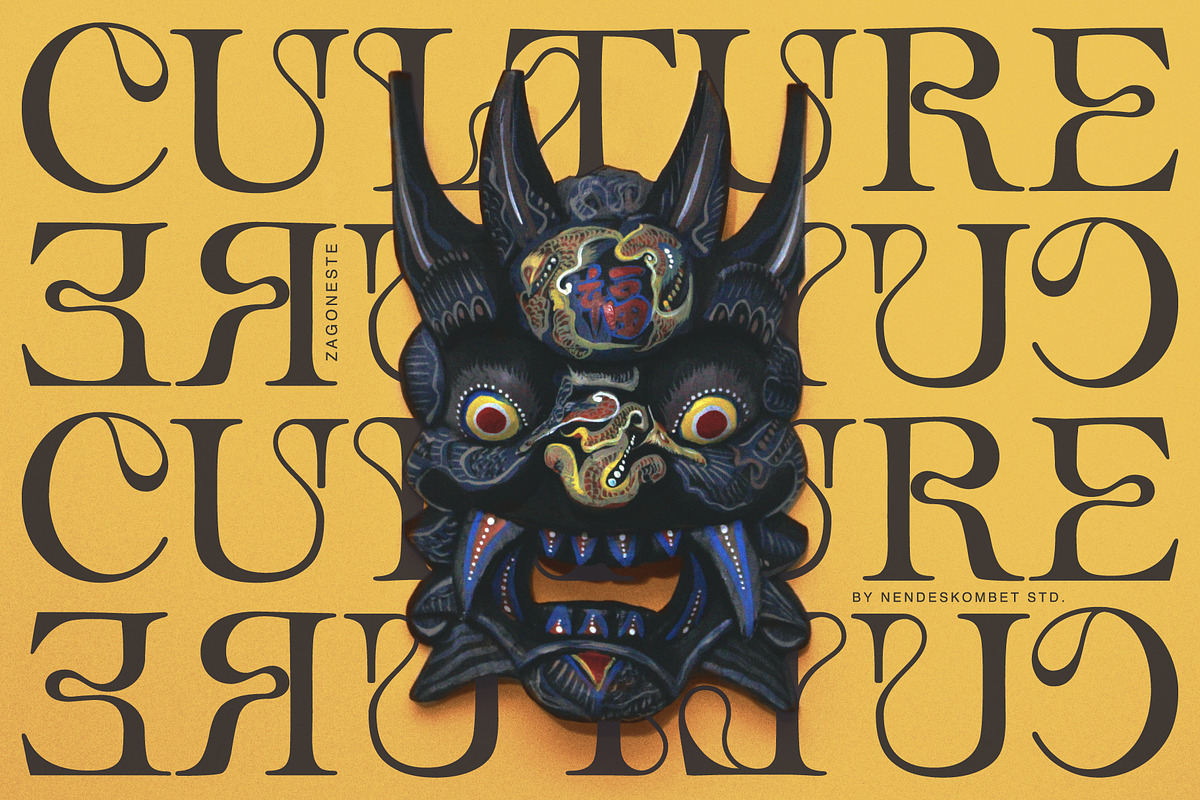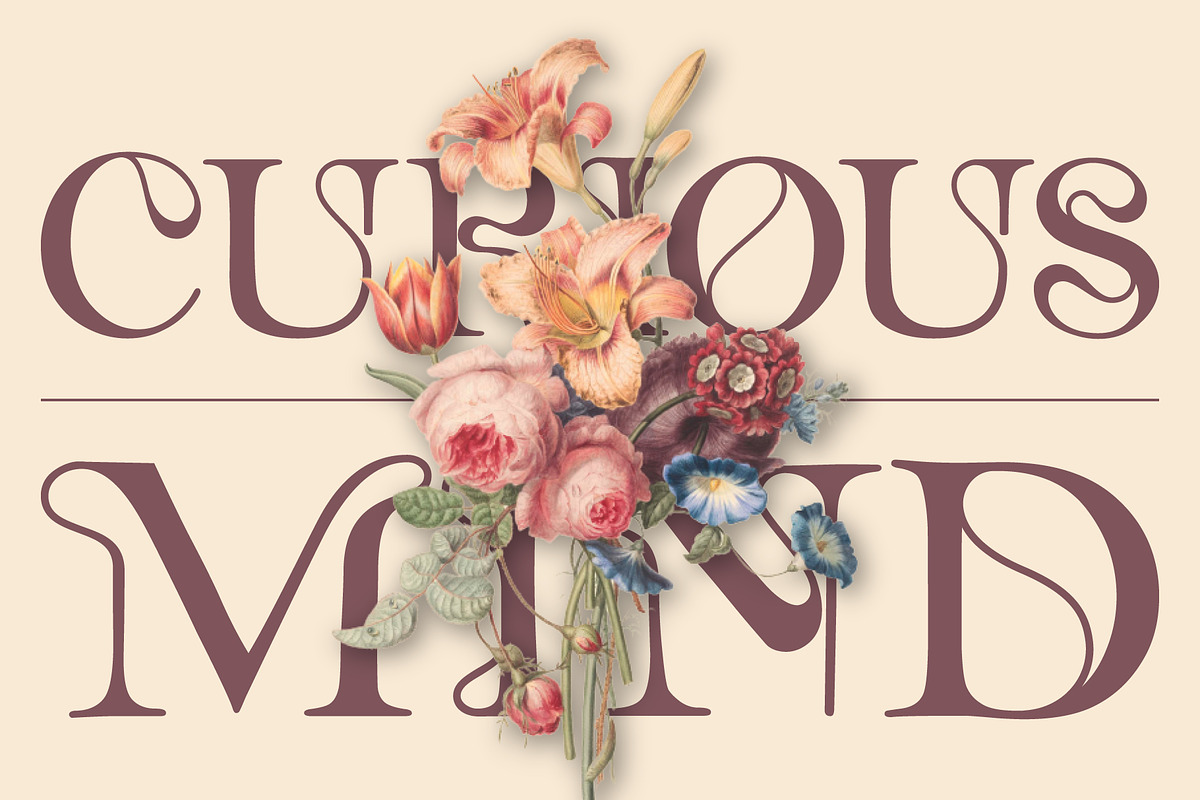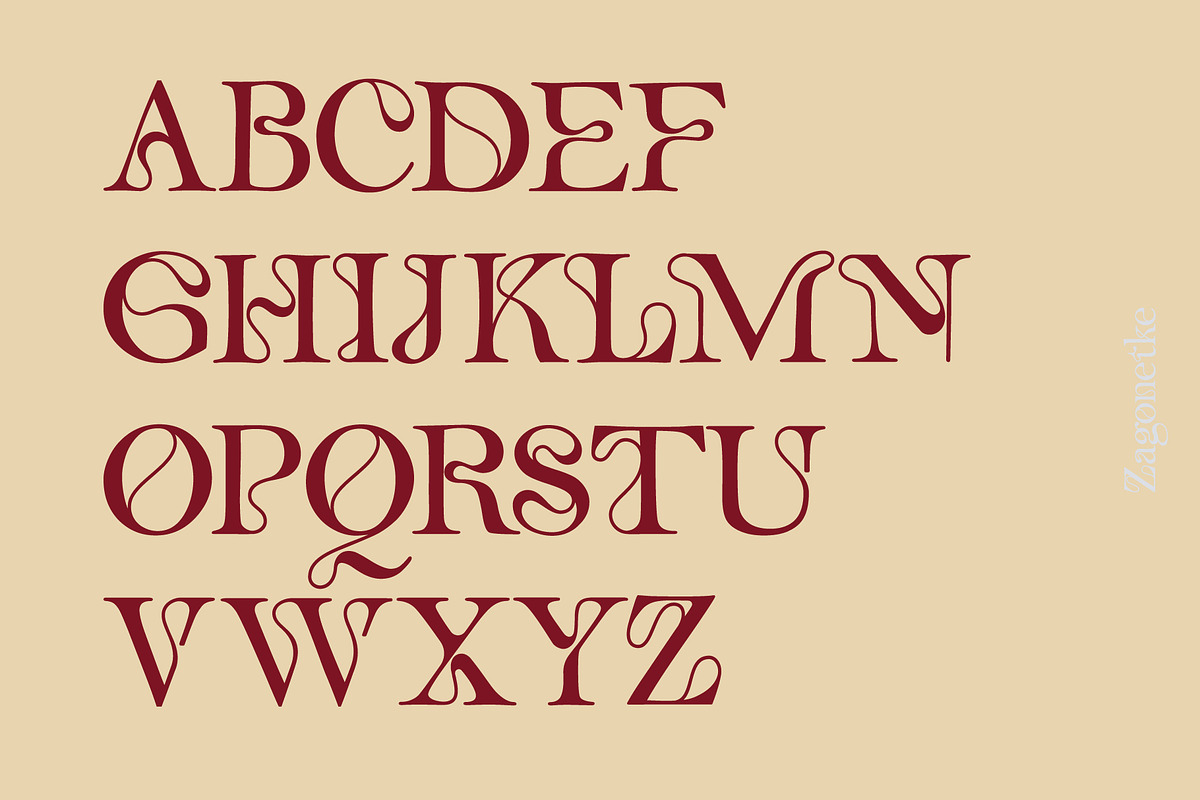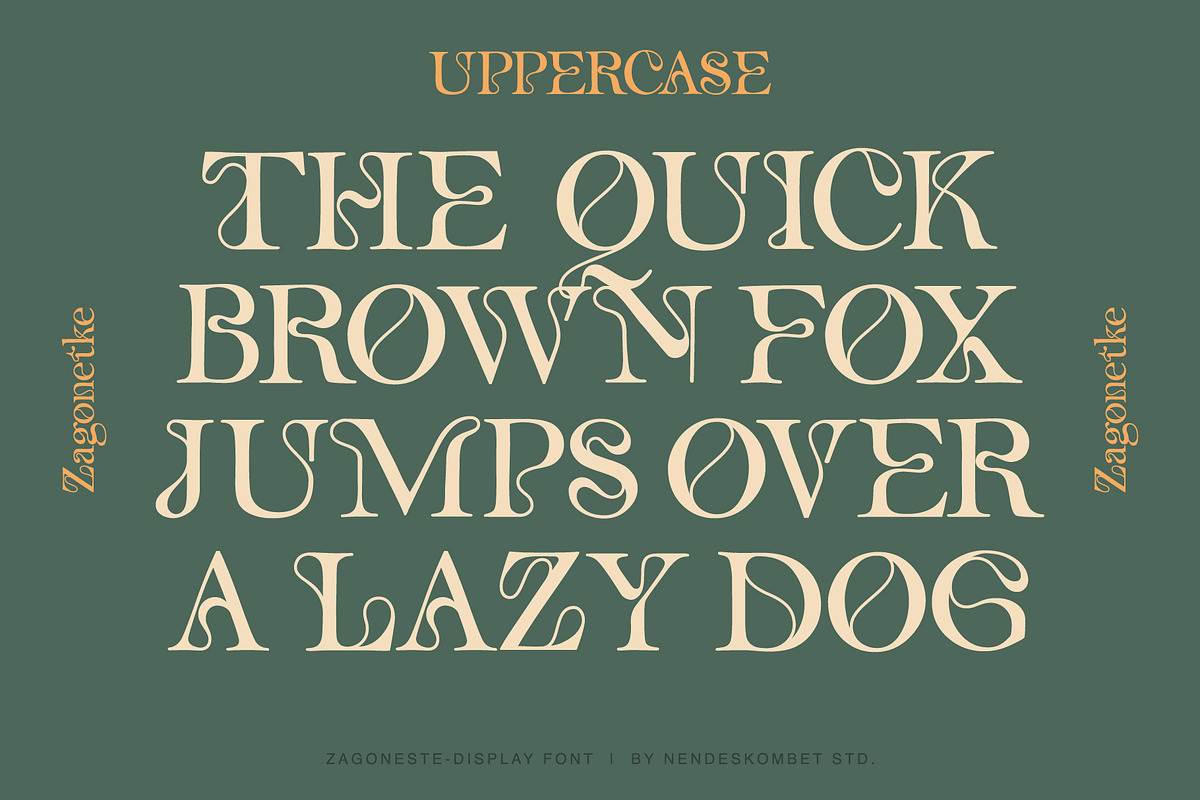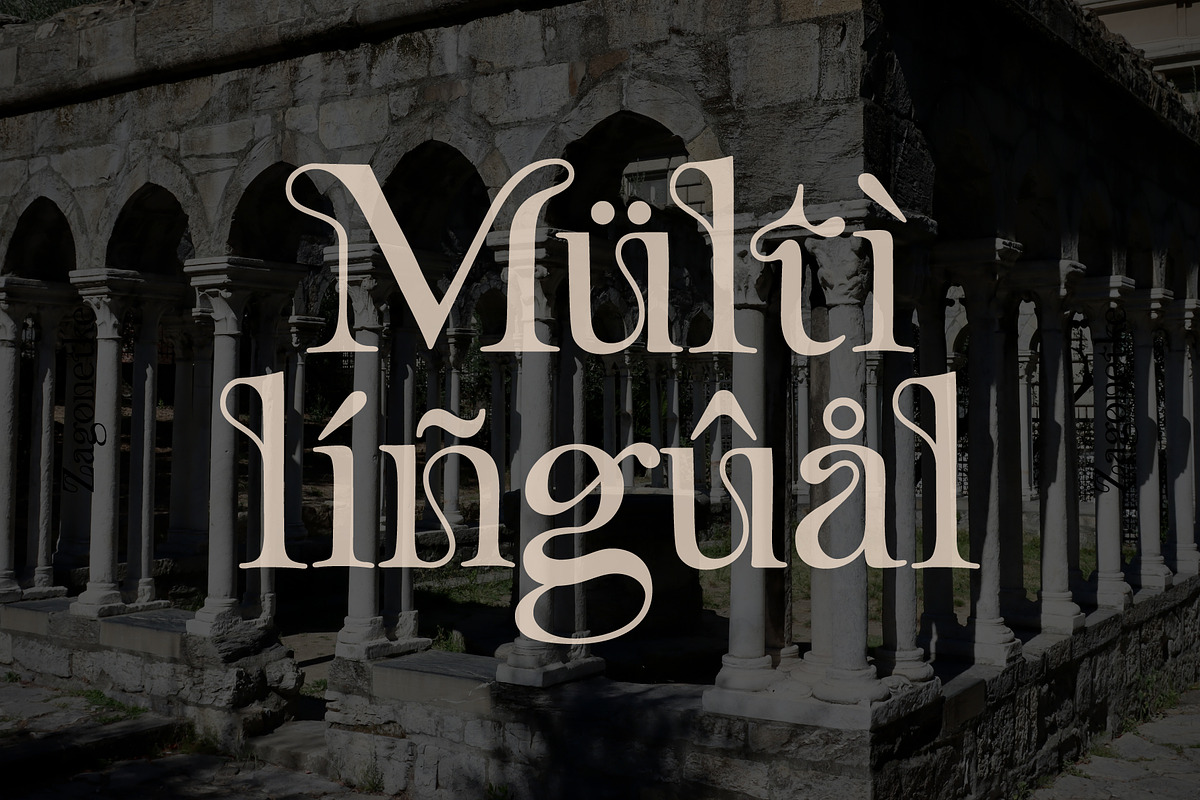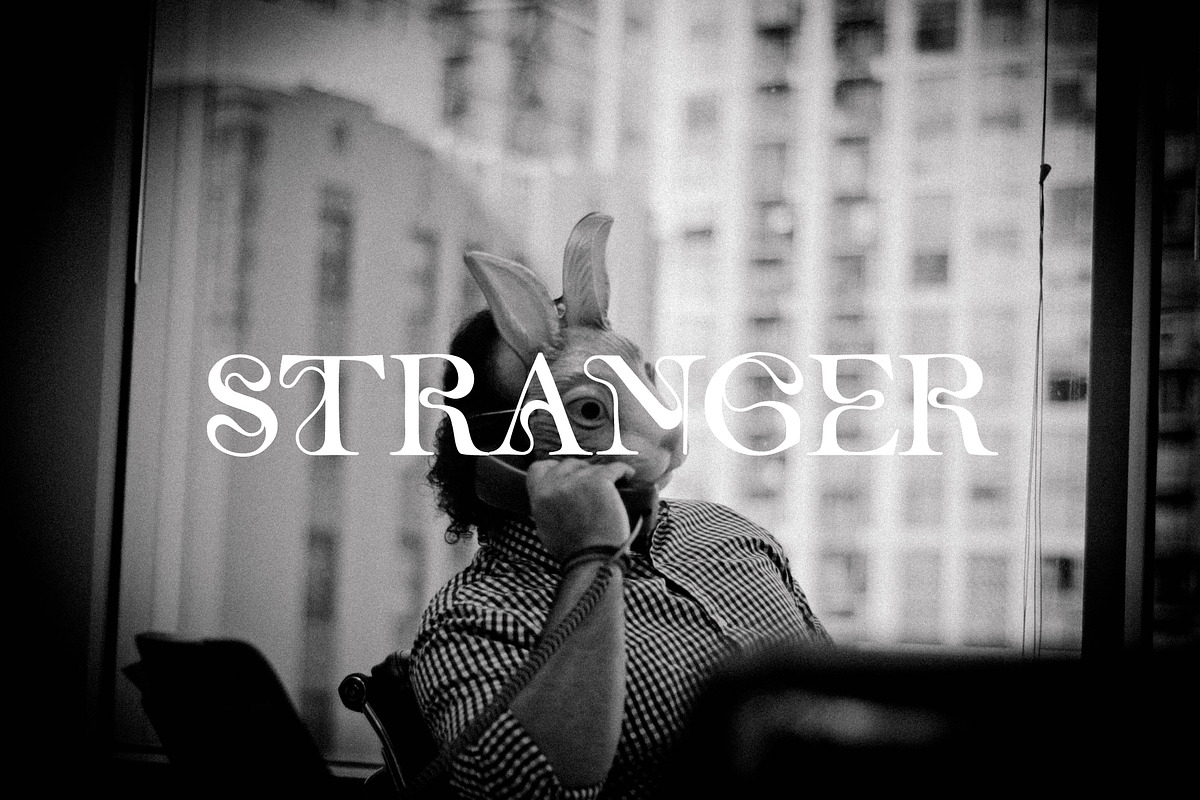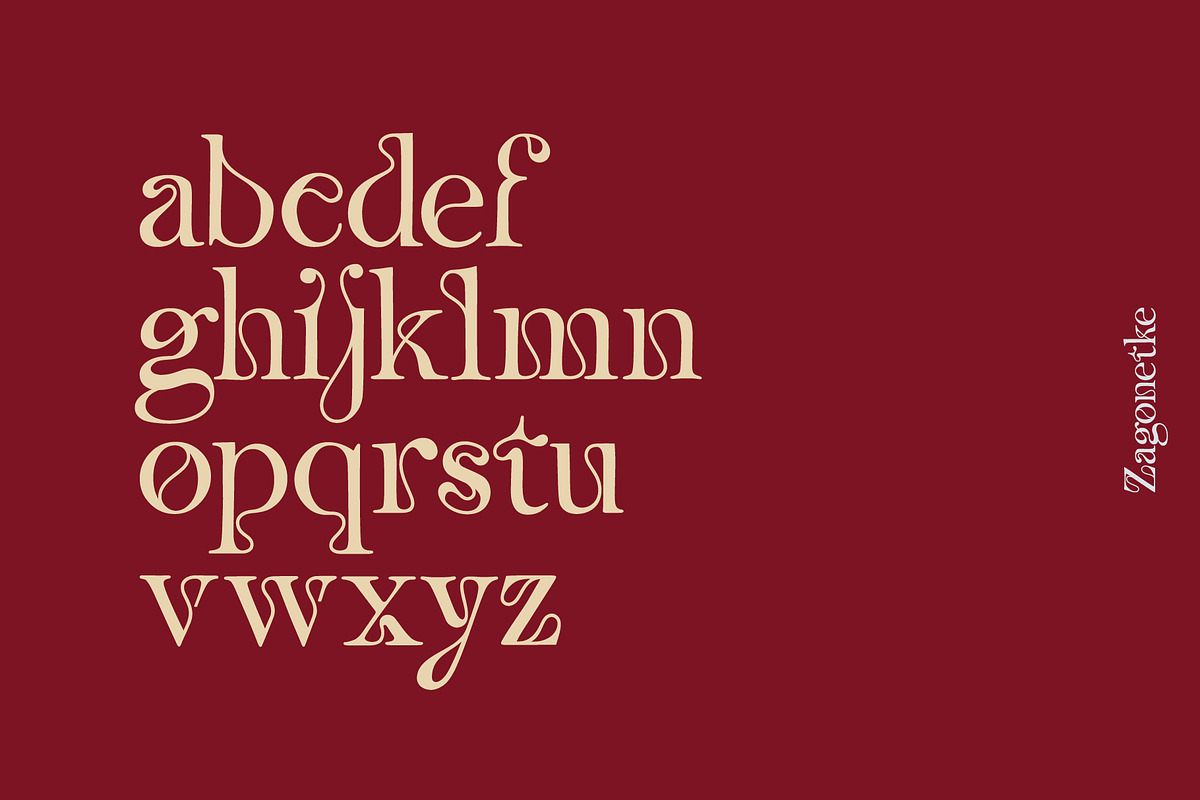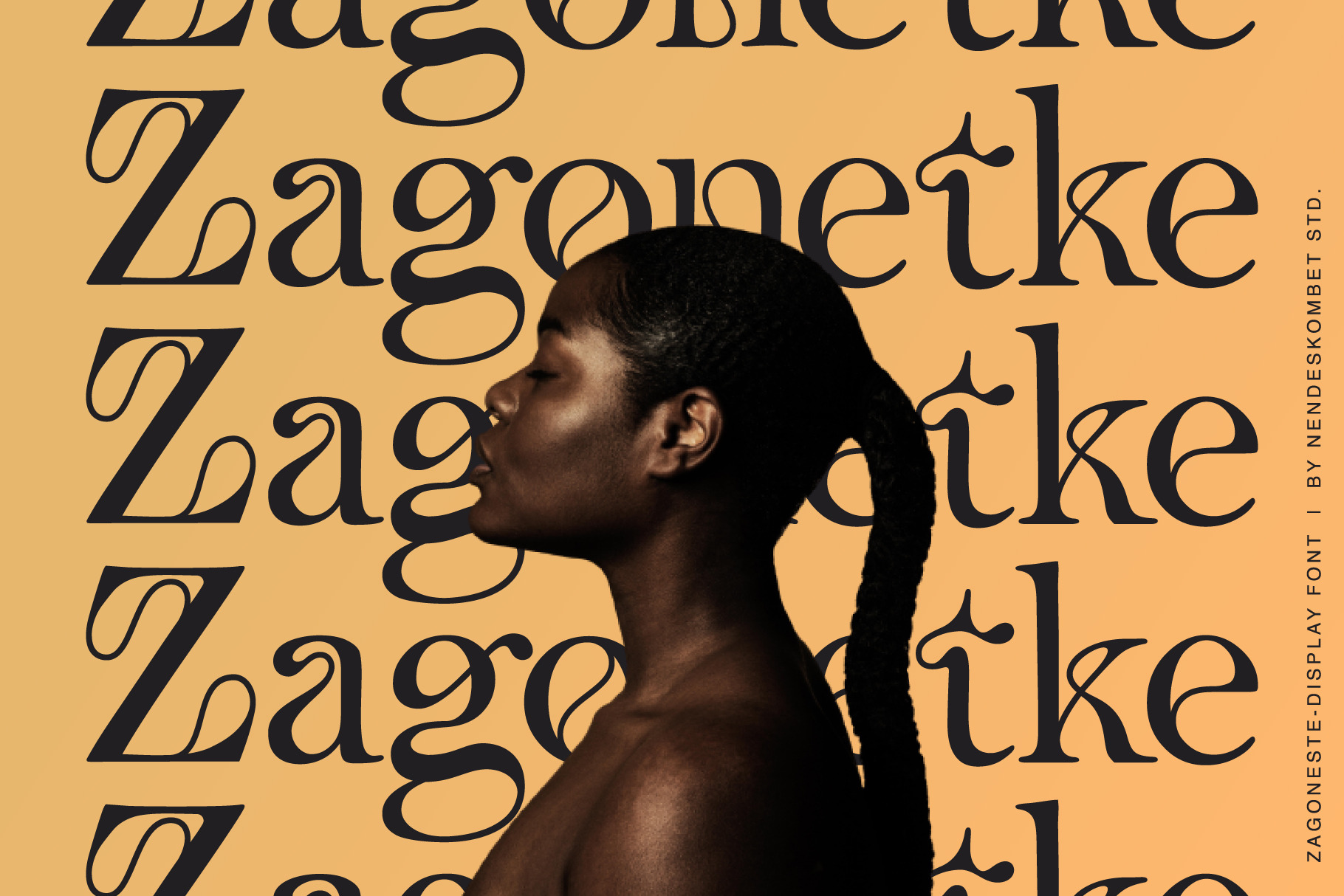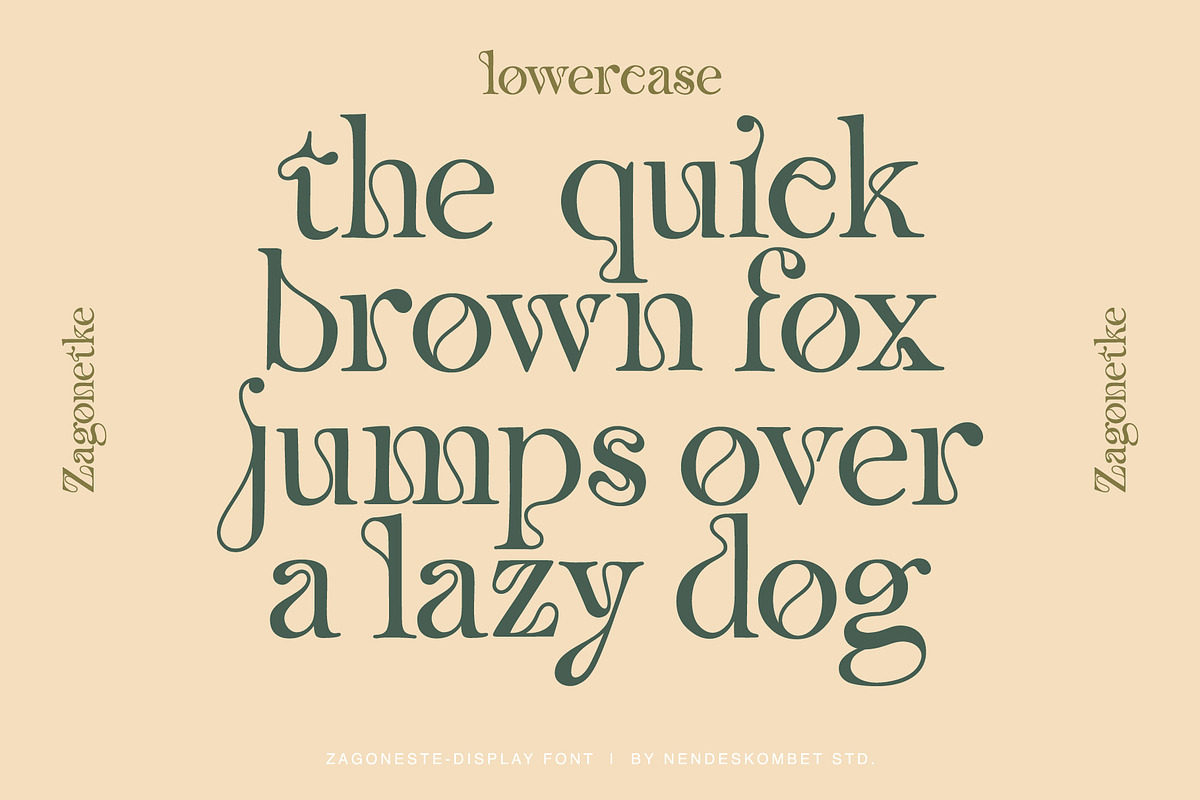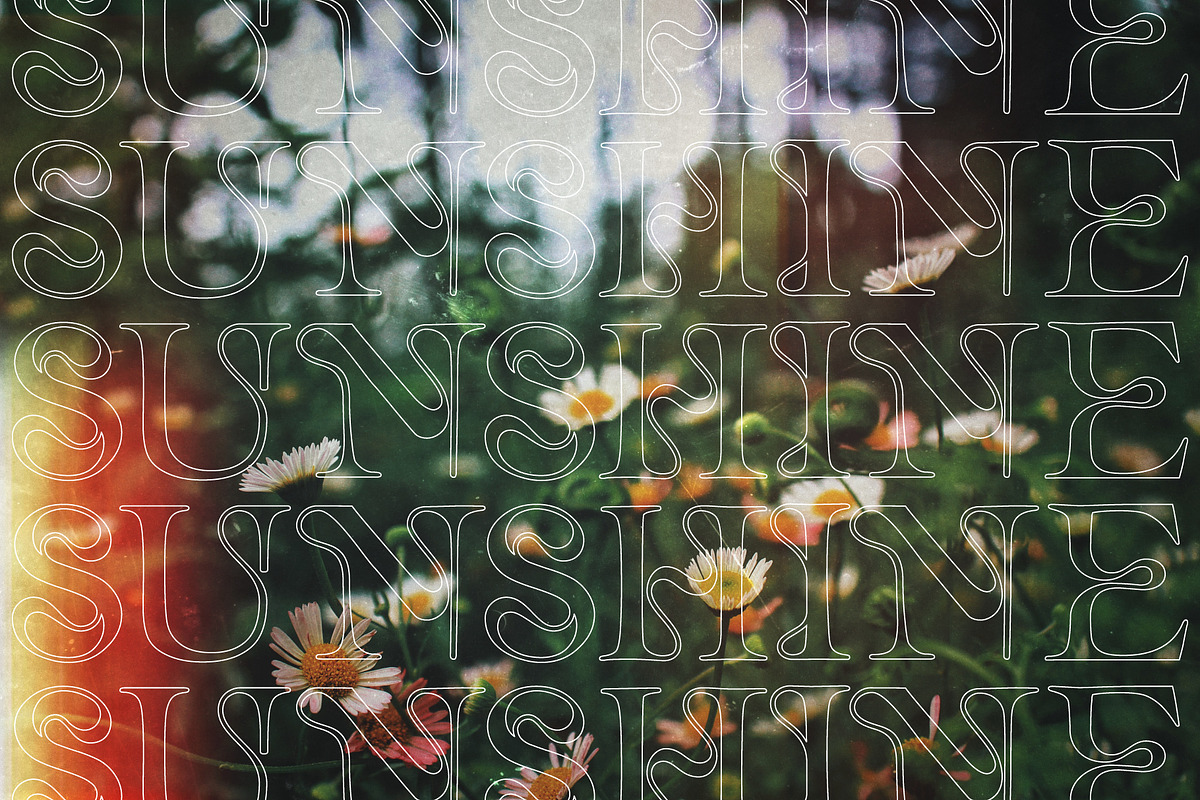
ZAGONETKE - UNIQUE DISPLAY FONT
Zagonetke is a very unique typeface with randomly connected curves, giving it a mysterious feel but can also be fun. This font is perfect for those posters, logos and quotes.
- Multilingual support ( including polish )